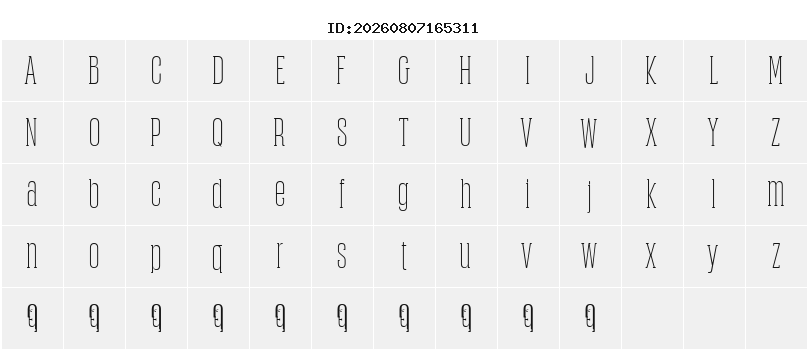
Obcecada Serif Preview
• Font Name: Obcecada Serif
• Designer: Fernando Haro
• Manufacturer: deFharo
About Obcecada Serif.ttf
Obcecada Serif.ttf is a modern, elegant sans-serif font designed for ultimate readability and visual harmony. Perfect for branding, headlines, web design, and print materials.